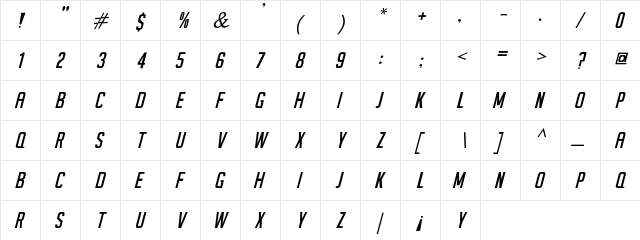
Seils Sans Italic
Design Context for Seils Sans Typeface
Seils Sans is a composed and adaptable typeface that performs quietly and consistently across a wide range of design contexts. The dynamic lean of this cut emphasises speed and emphasis in any layout.
Pro Tip: Try Seils Sans for annotation and caption copy alongside an upright companion — the contrast in angle creates a dynamic but ordered typographic system.